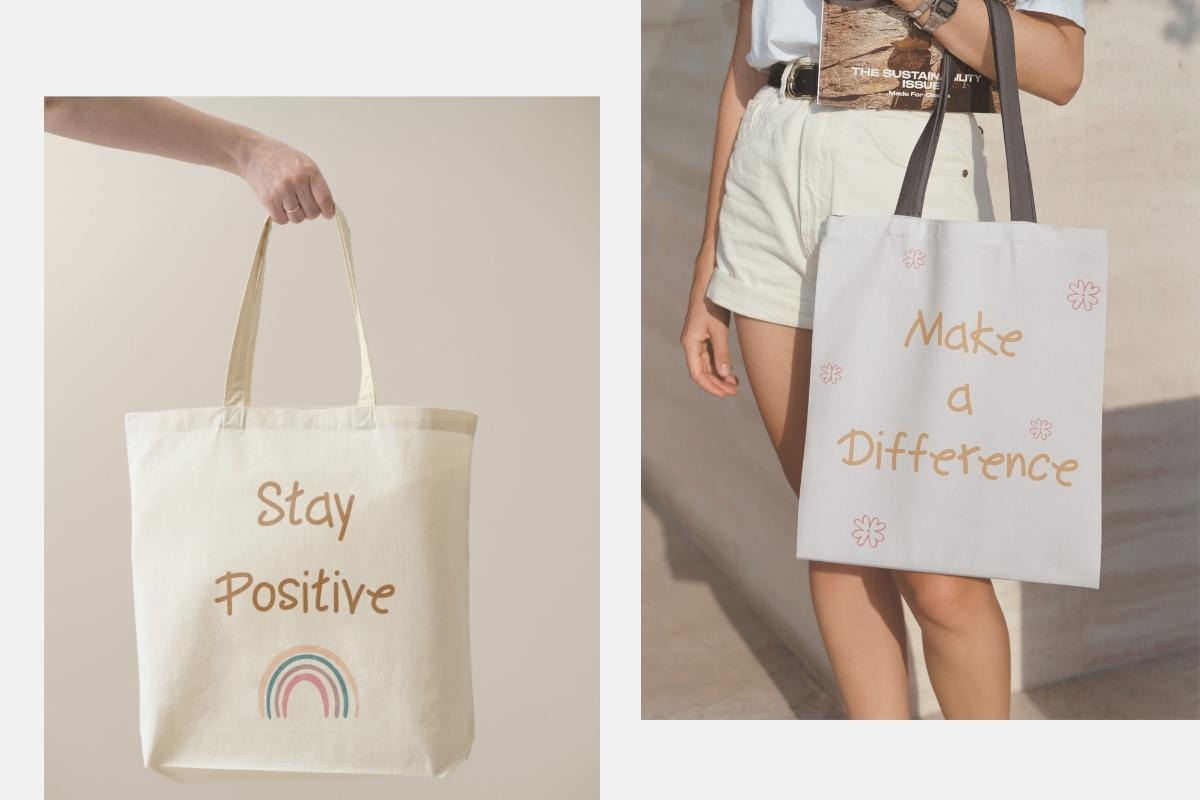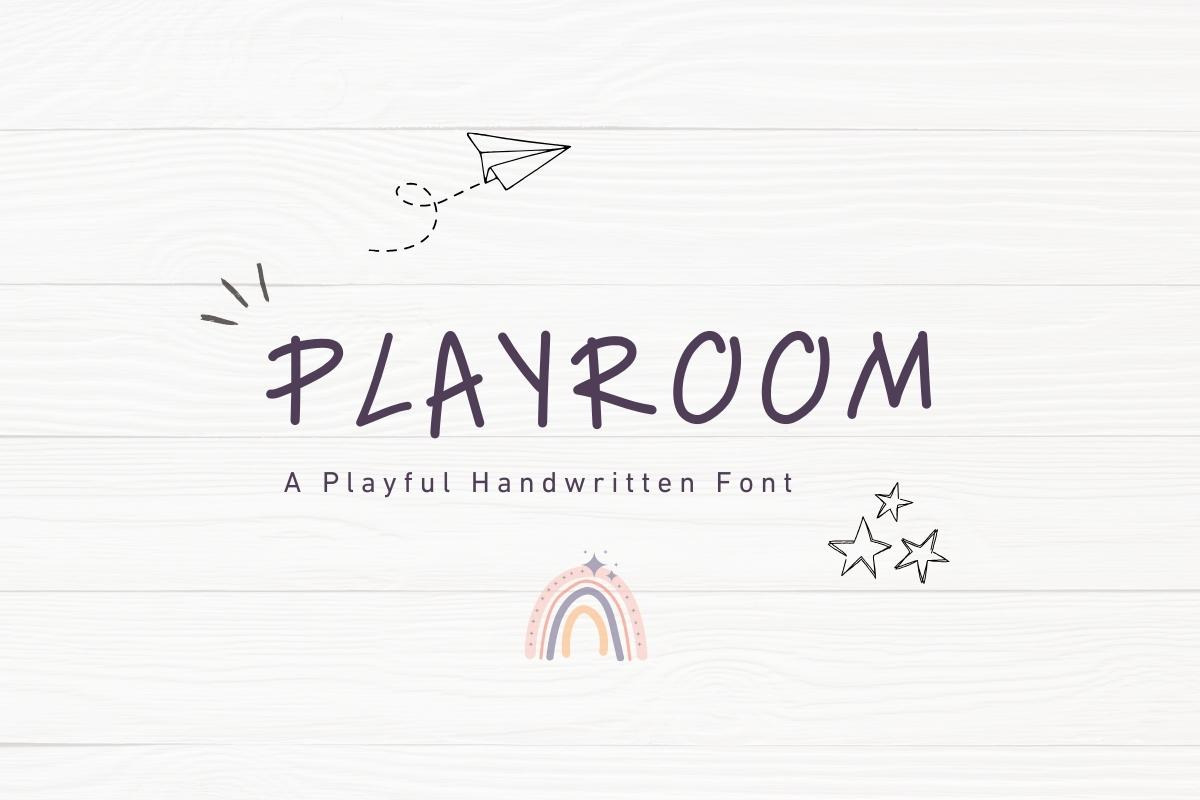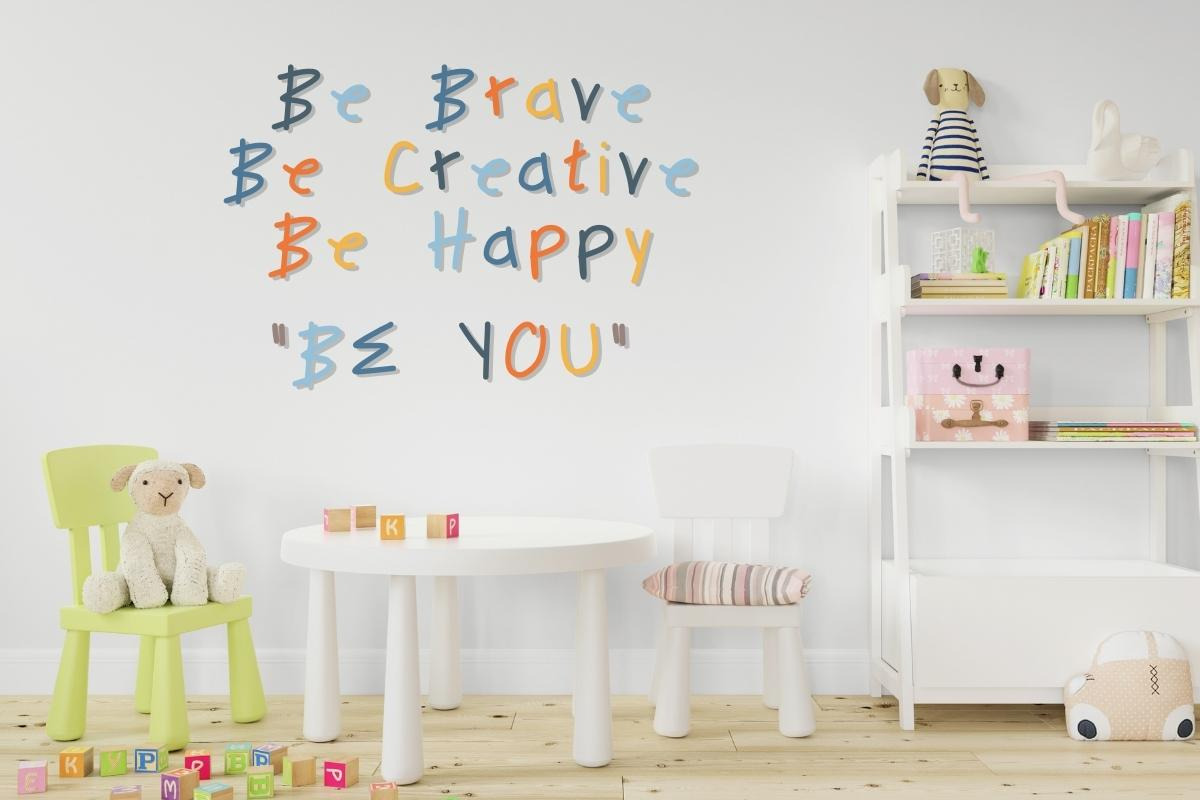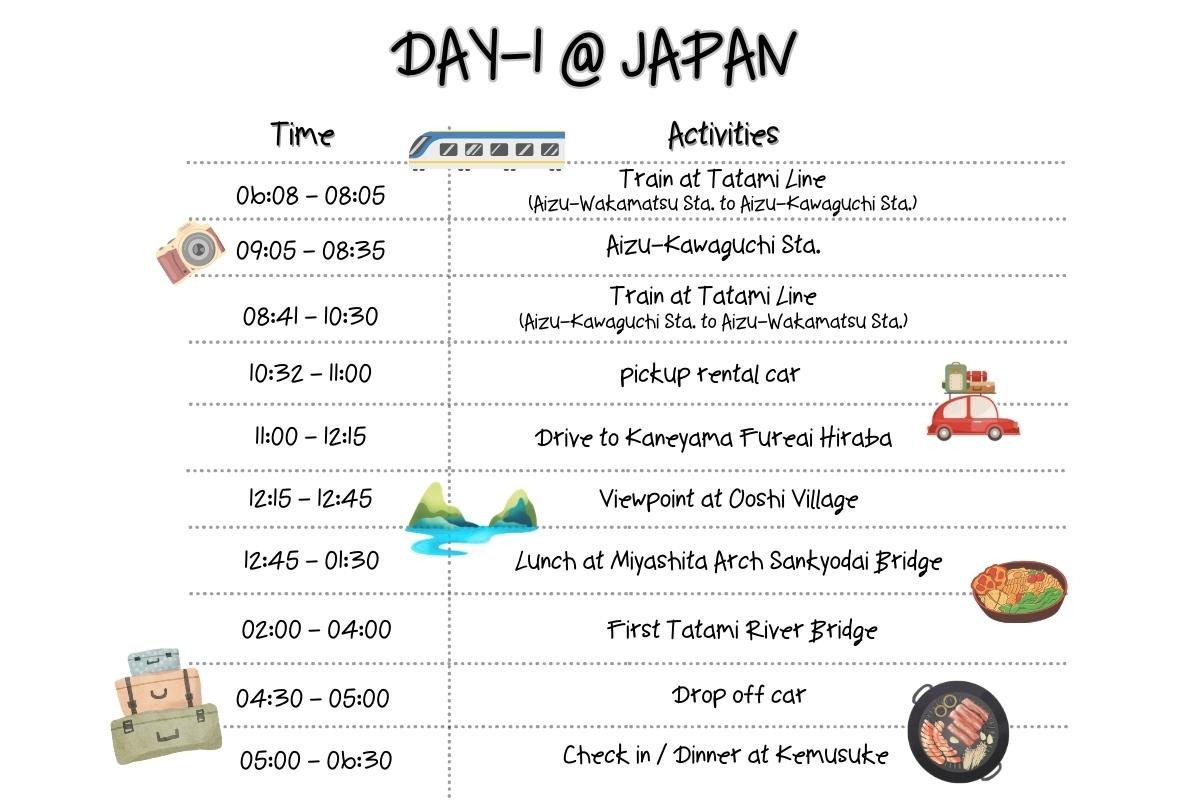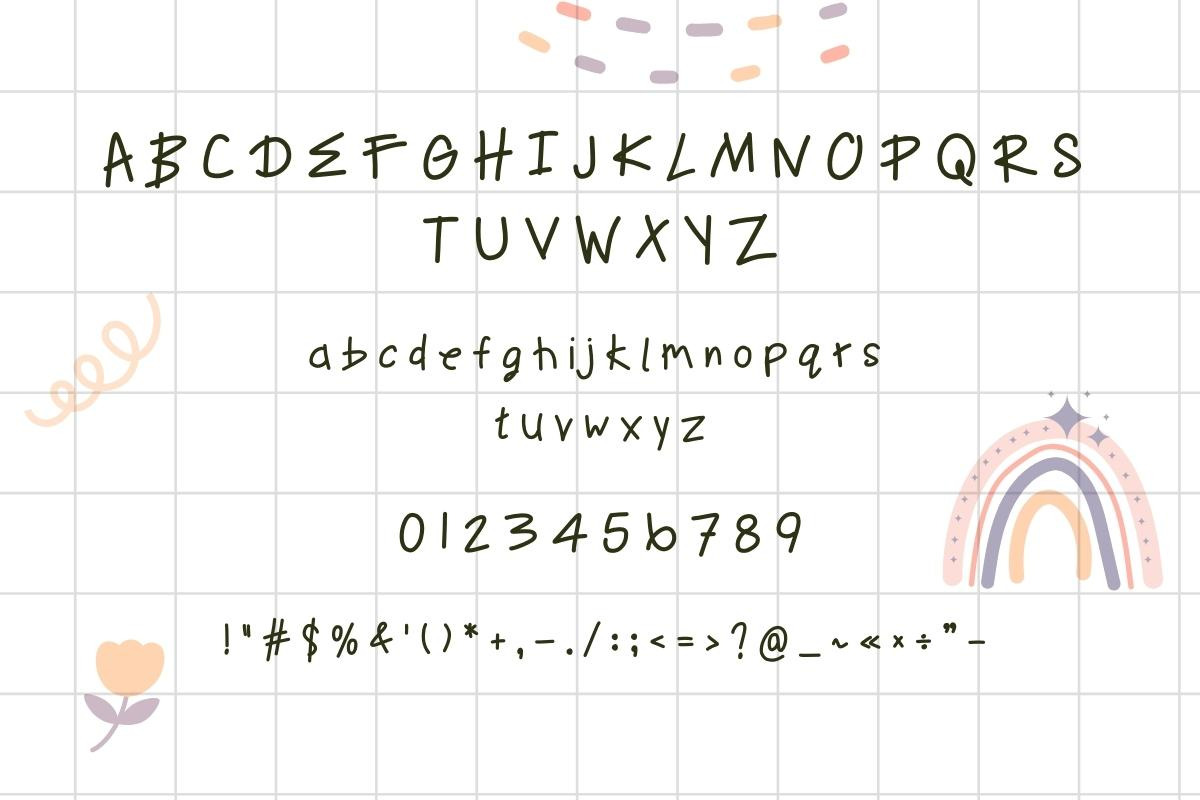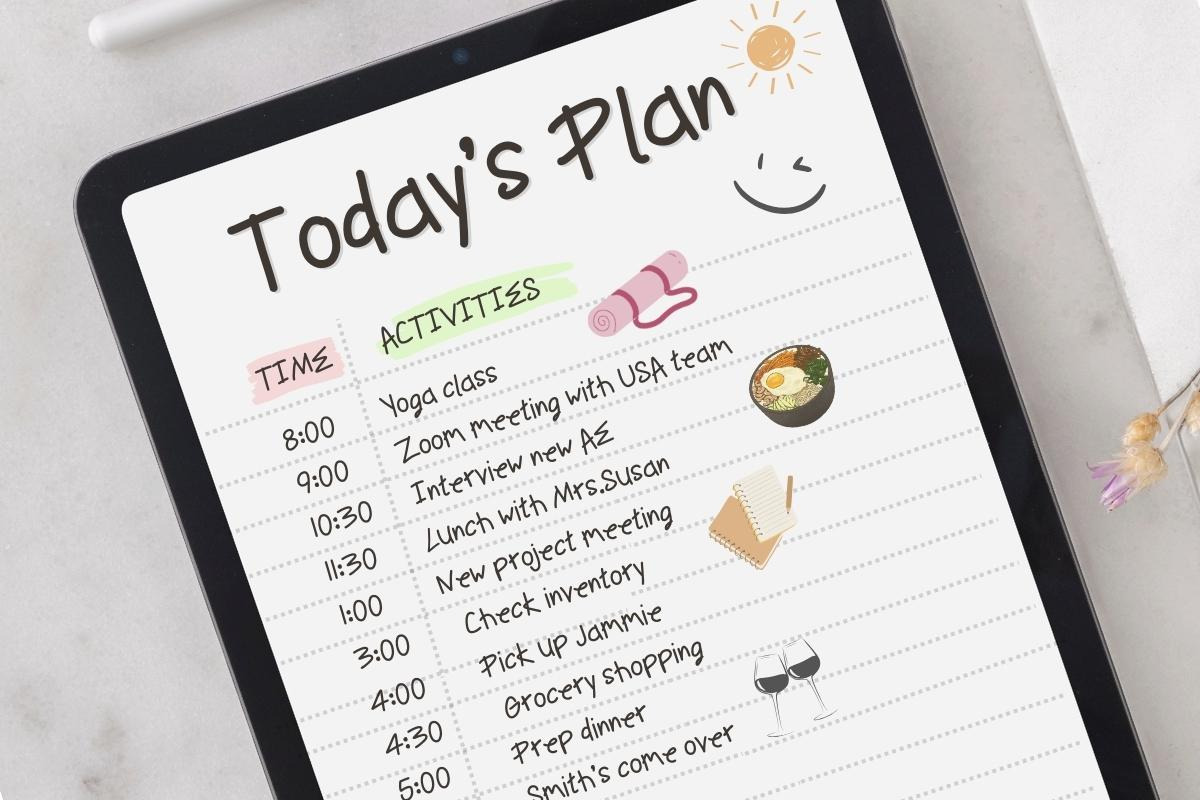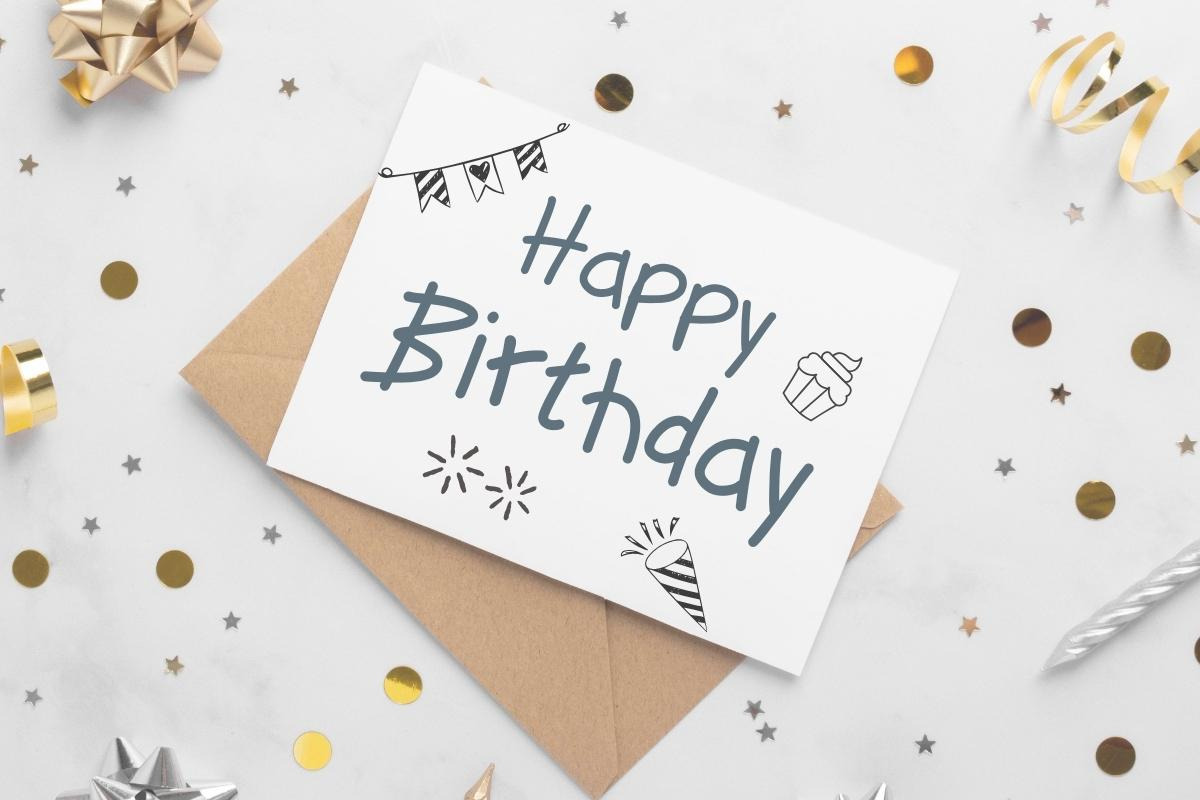
Playroom | A Handwritten Font
Playroom Font is a simple, neat handwritten font, perfect for digital note-taking. You can use this font in various projects - blog posts, logos, branding, digital planner, invitations, greeting cards, planners, photo albums, decorations and much more.